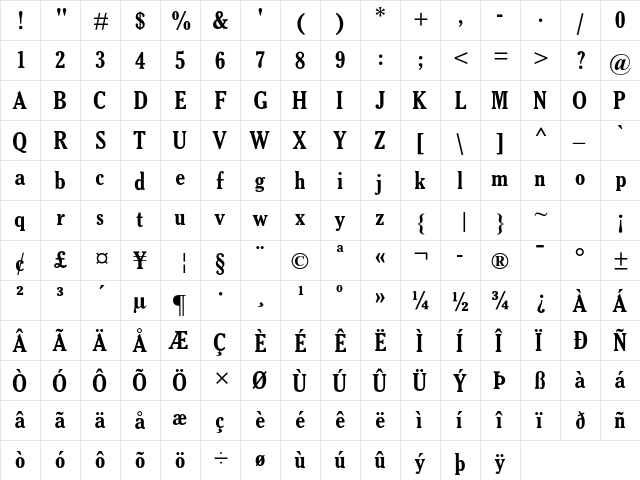
Gloucester MT Std Bold Cond
Design Context for Gloucester MT Std Typeface
Gloucester MT Std is a composed and adaptable typeface that performs quietly and consistently across a wide range of design contexts. The heavy weight commands attention and anchors typographic hierarchies. The condensed width makes it efficient for tight spaces without sacrificing legibility.